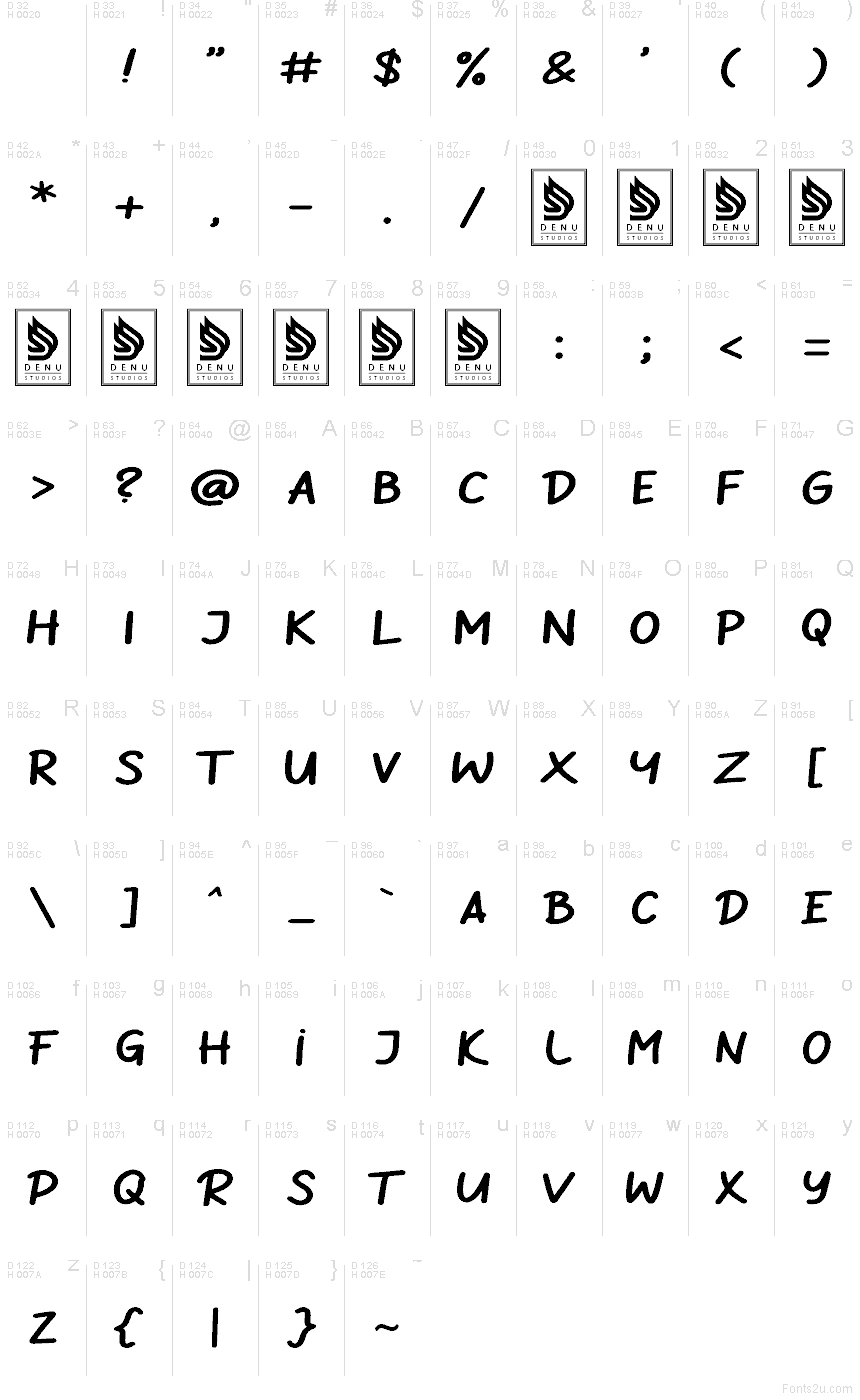
Identic Partner Script Display by Denustudios is a free handwritten brush font with a loose, casual rhythm and thick rounded strokes that feel painted in one quick pass. The letters lean on broad, slightly uneven shapes and soft corners, giving the font an easy sign-painter energy instead of a polished script manner.
It fits poster headlines, cafe branding, album covers, packaging, and social media title cards where a free font can carry a friendly, made-by-hand mood. Because the strokes stay bold and simple, it also works well for short cover lines, drop-in words, and monogram-style marks that need a blunt, human touch.